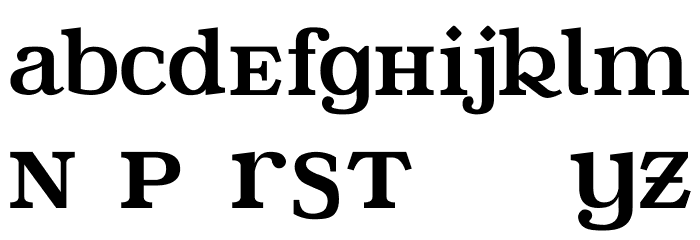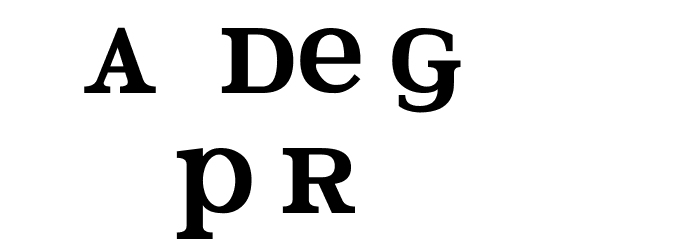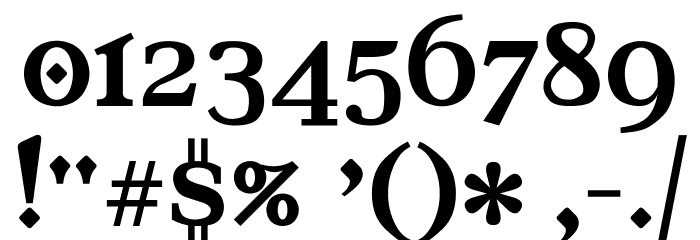
Water Street Detour Regular Font
This font features a unique blend of classic serif elements with a modern twist. The characters exhibit a playful yet sophisticated style, with distinct curves and sharp edges that create a dynamic visual appeal. The uppercase letters are bold and commanding, while the lowercase letters maintain a consistent flow with slightly exaggerated serifs. The numerals are clear and legible, designed to stand out without overpowering the text. Special characters are crafted with attention to detail, adding to the font's versatility. Overall, this font balances elegance with a touch of whimsy, making it suitable for a variety of design projects.
A modern serif font with playful curves and sharp edges.
- Font: Water Street Detour Regular
- Proposed Projects: Ideal for branding, editorial design, posters, and packaging where a distinctive yet readable font is desired.
- Category: Serif
- Use Case: Headlines, Logos, Editorial design